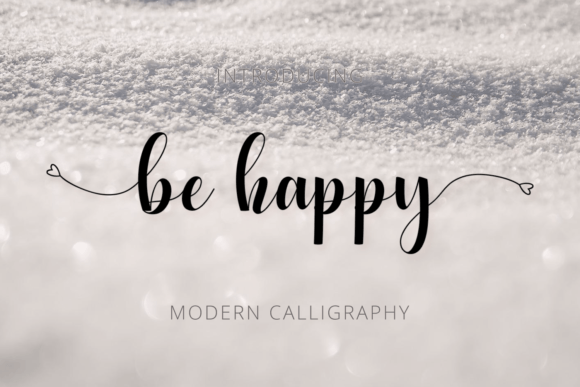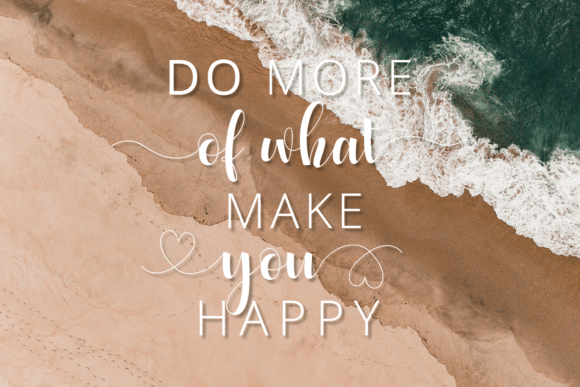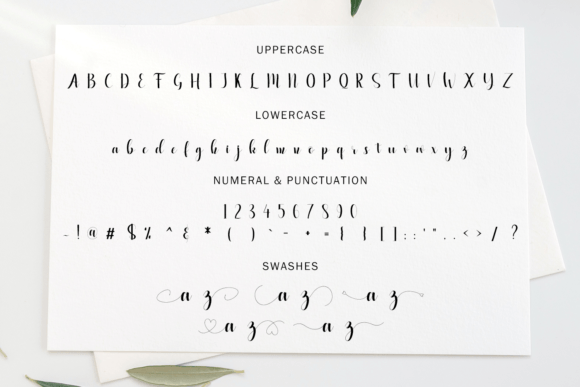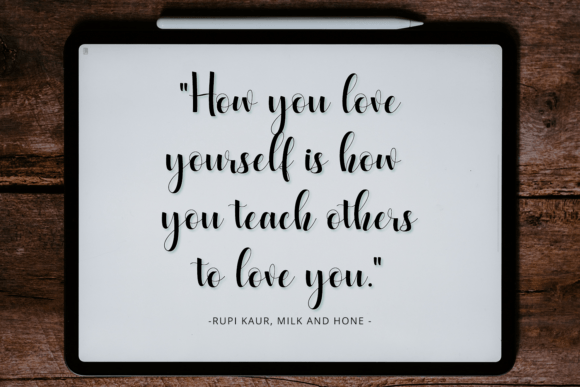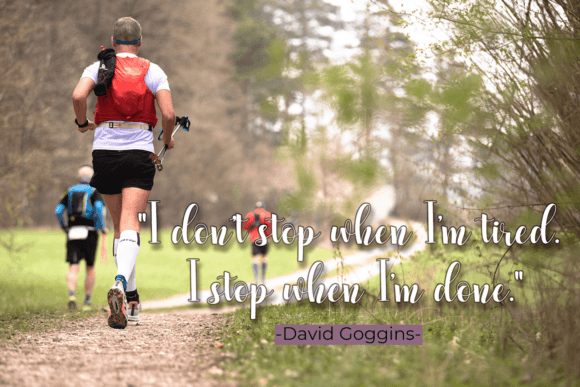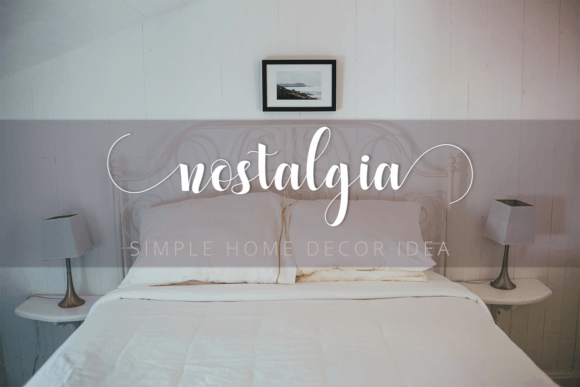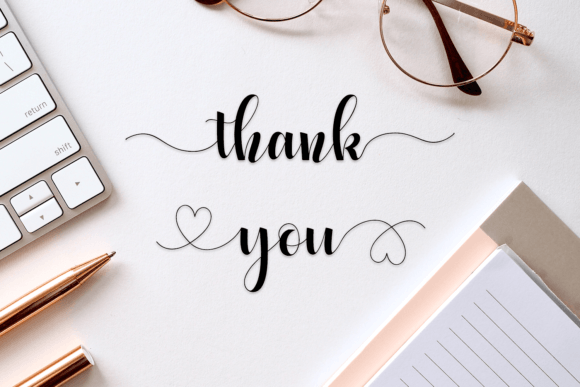
Be Happy Font
About Be Happy Font
“Embrace Elegance with Be Happy Handwritten Font
Infuse your designs with a touch of romance and sophistication using Be Happy Handwritten Font, a beautifully flowing typeface that adds a dash of fancy flair to any project. With its graceful curves and exquisite details, this font is perfect for elevating wedding invitations, birthday cards, thank you notes, personal branding, and any other items that demand a chic and refined look.
Be Happy Handwritten Font stands out for its versatility and timeless charm. Its romantic and flowing script evokes feelings of love and grace, making it ideal for crafting elegant invitations to unforgettable weddings and enchanting events. Imagine the font adorning the cover of a wedding album, setting the stage for a love story told in every page.
This font’s delicate strokes and carefully crafted characters make it a fantastic choice for personalized items, adding a touch of sophistication to your correspondence. Picture it gracing thank you notes for bridal showers, baby announcements, or special occasions, leaving a lasting impression on recipients with its elegant and heartfelt vibe.
Be Happy Handwritten Font is also a wonderful choice for personal branding projects, allowing individuals to showcase their refined taste and sophistication. Whether it’s business cards, email signatures, or social media graphics, this font lends an air of exclusivity and charm to your personal brand, making a statement that is both memorable and elegant.
One of the standout features of Be Happy Handwritten Font is its PUA encoding, which provides easy access to a wide array of glyphs and swashes. This accessibility enables you to unleash your creativity, experimenting with various characters and flourishes to create truly unique and personalized designs.
Embrace the art of handwritten elegance with Be Happy Handwritten Font. Let its romantic and graceful presence transform your designs into timeless masterpieces. Whether you’re celebrating love, making personal connections, or enhancing your brand, this font will effortlessly elevate your creations, leaving a trail of beauty and sophistication in its wake.”